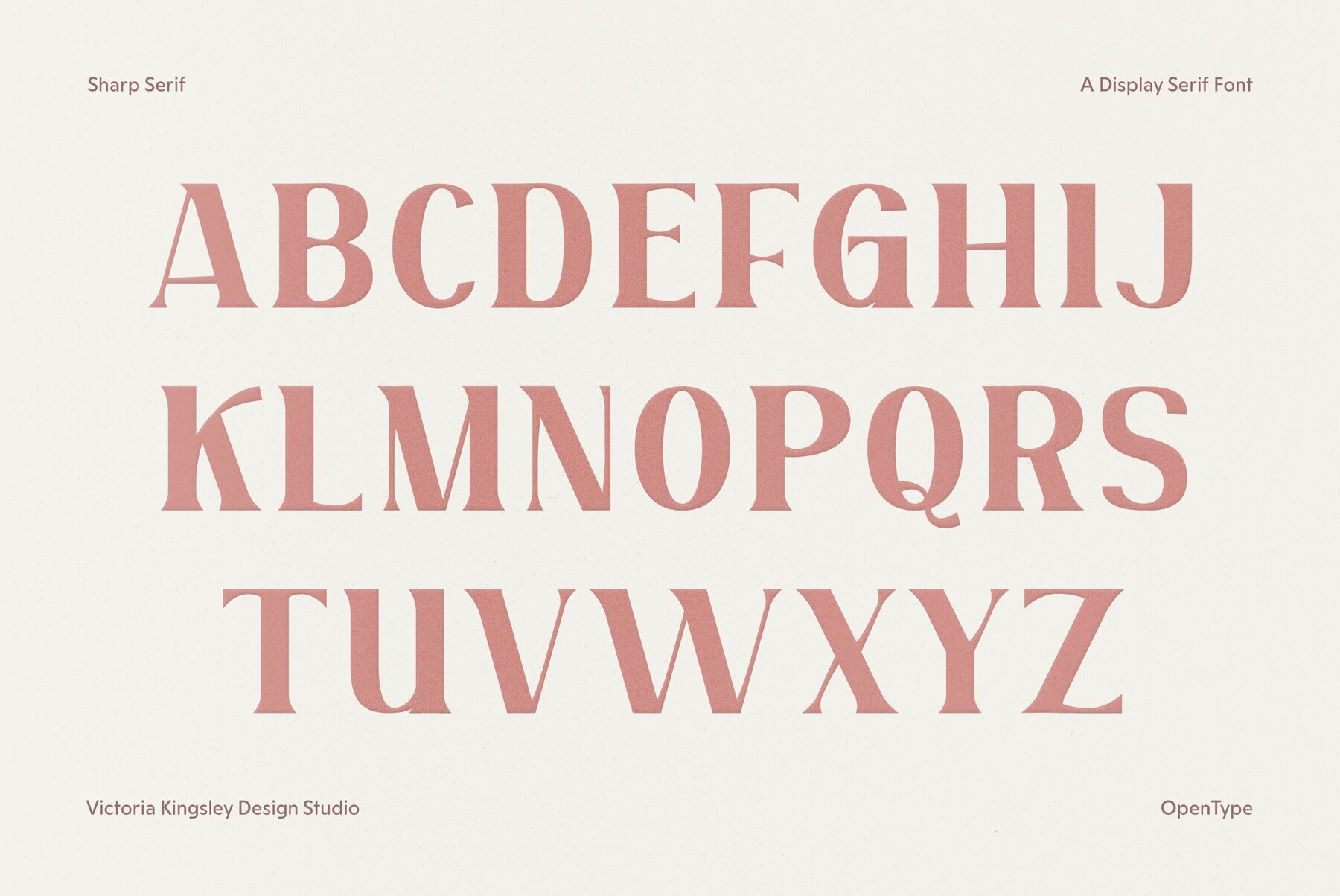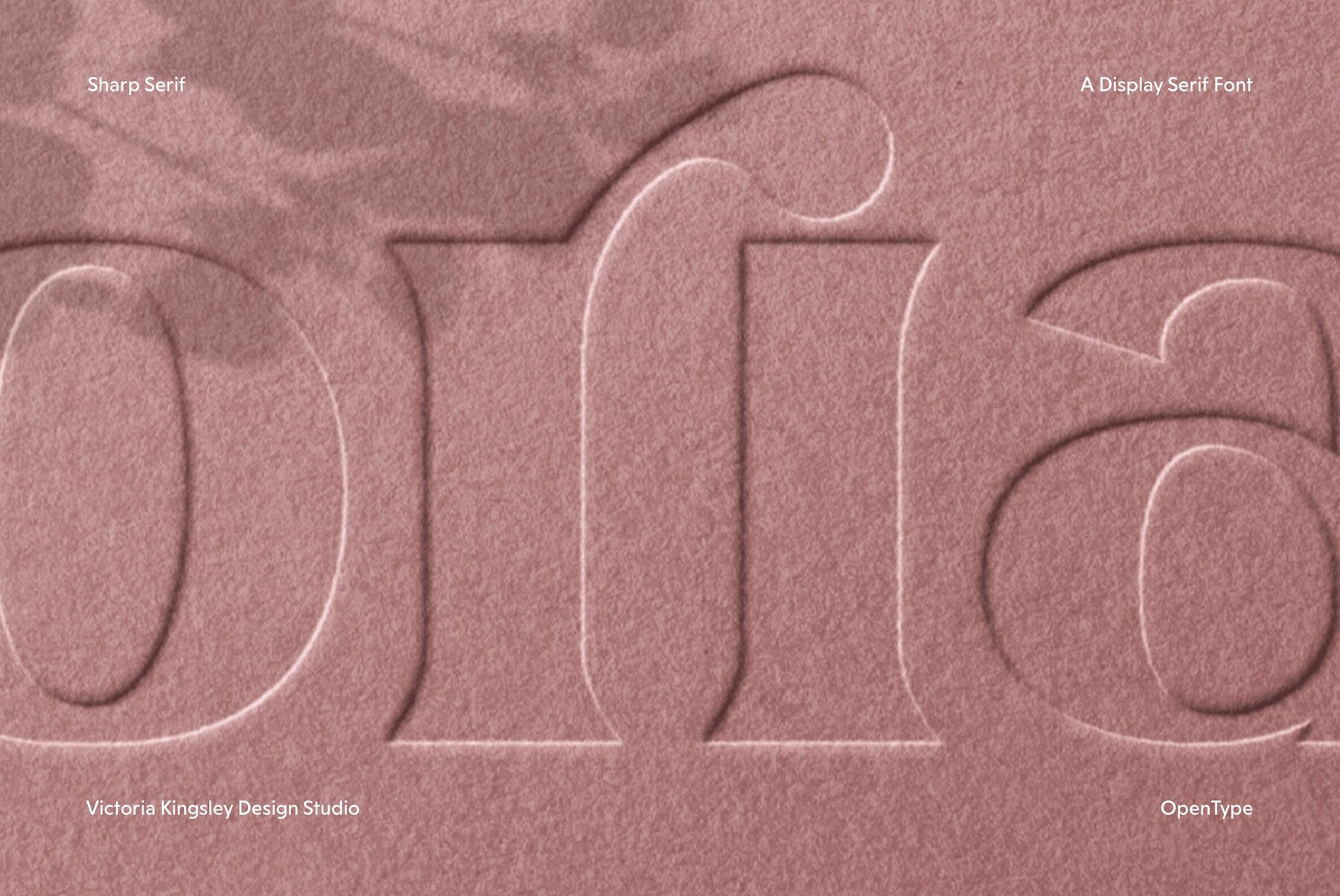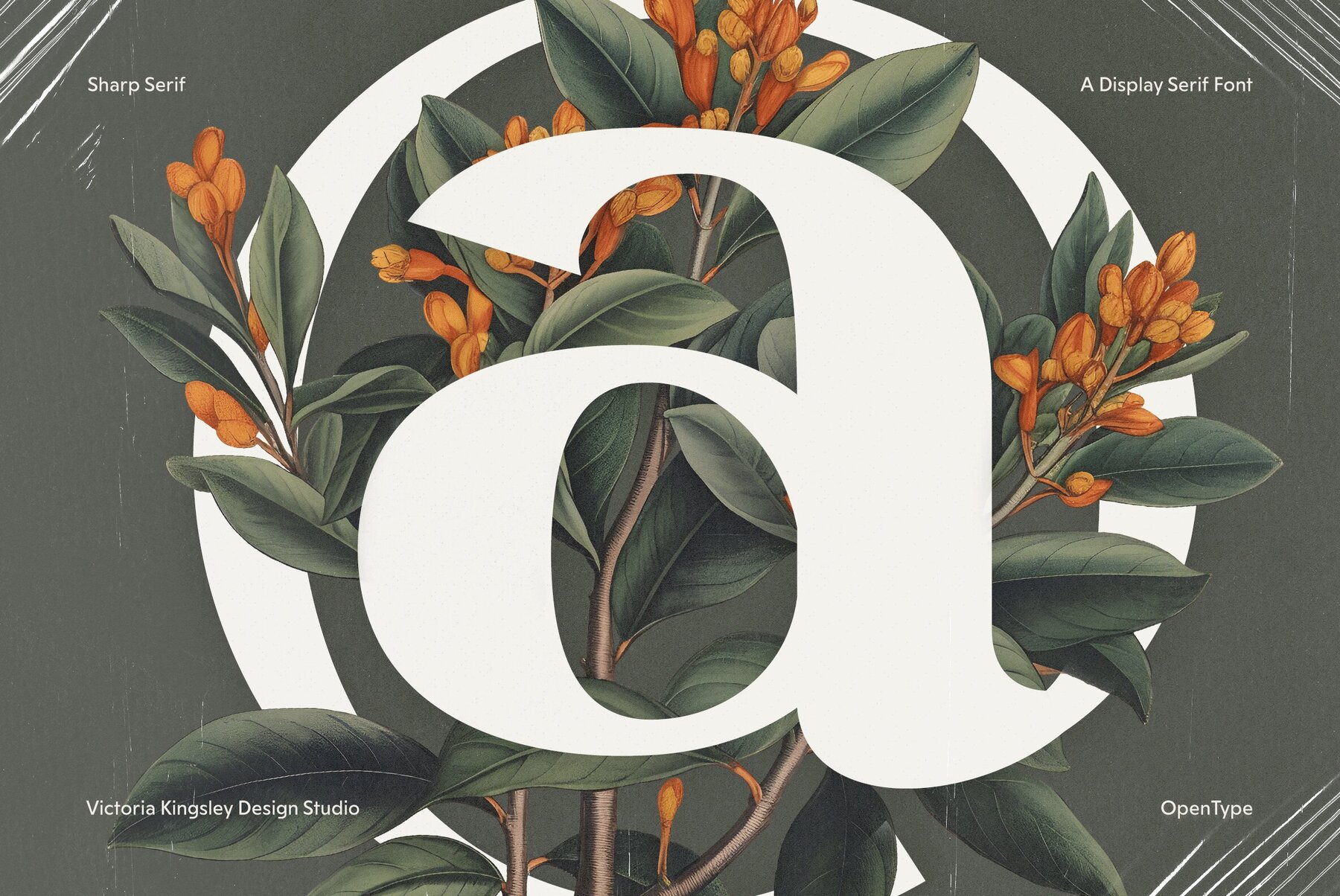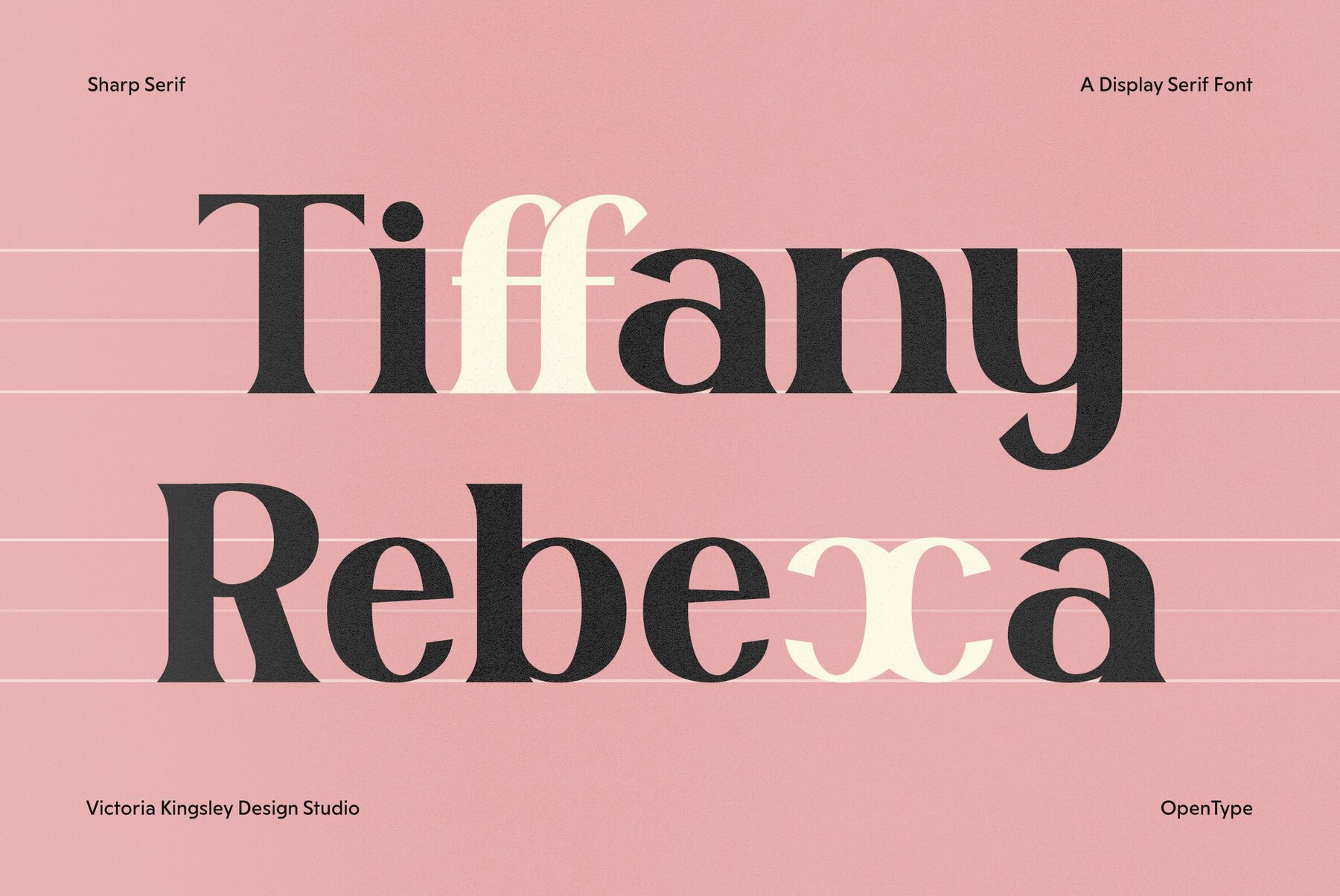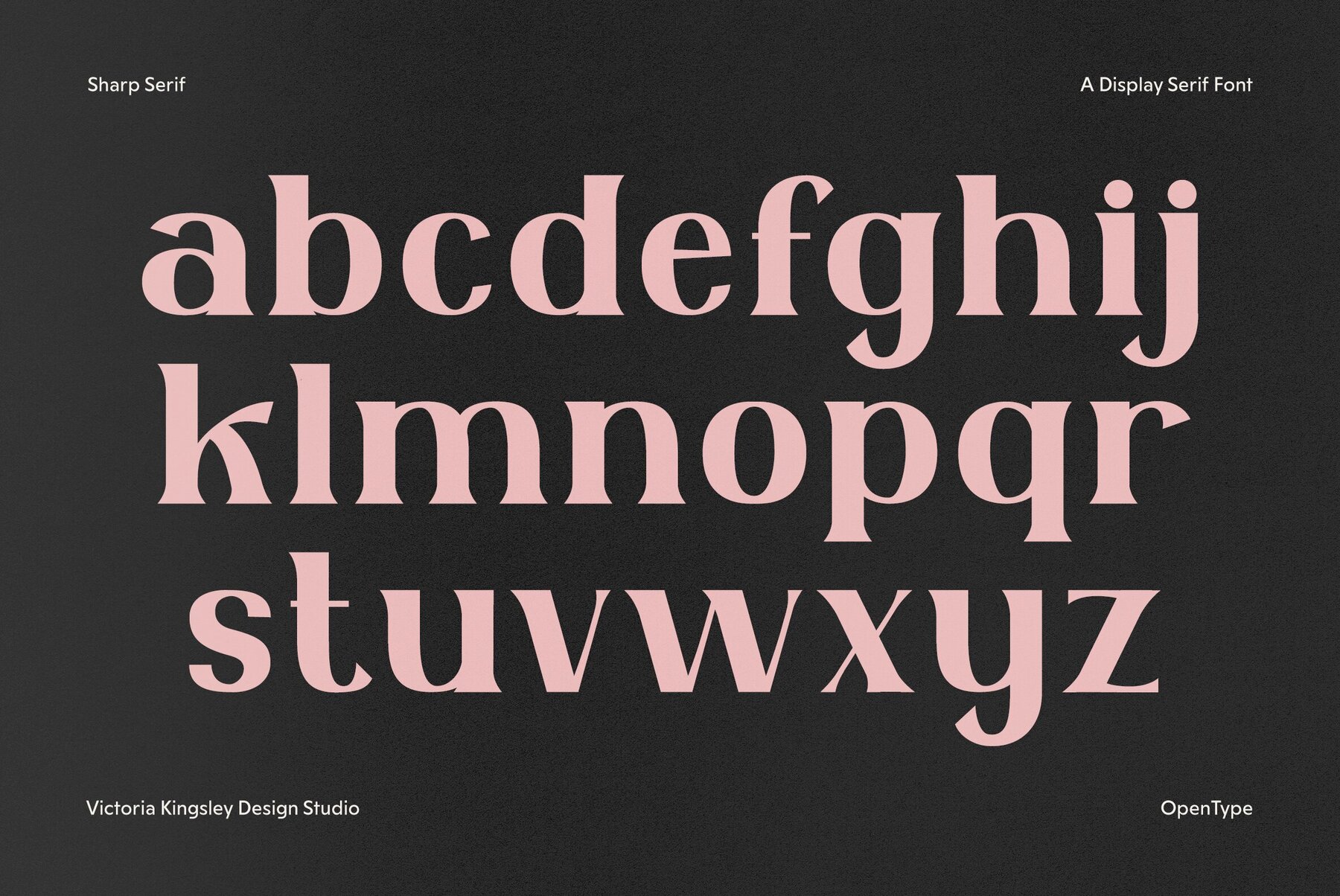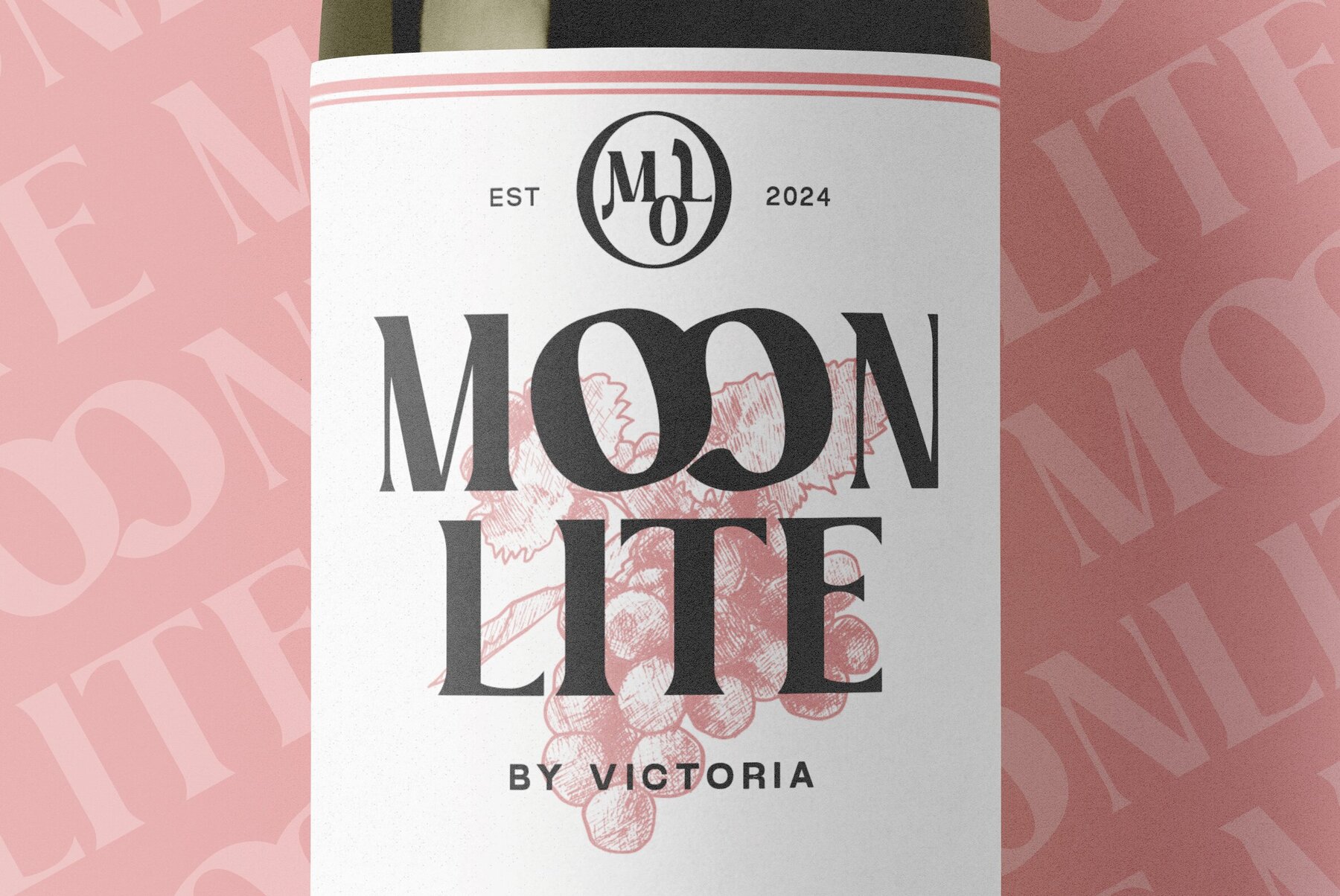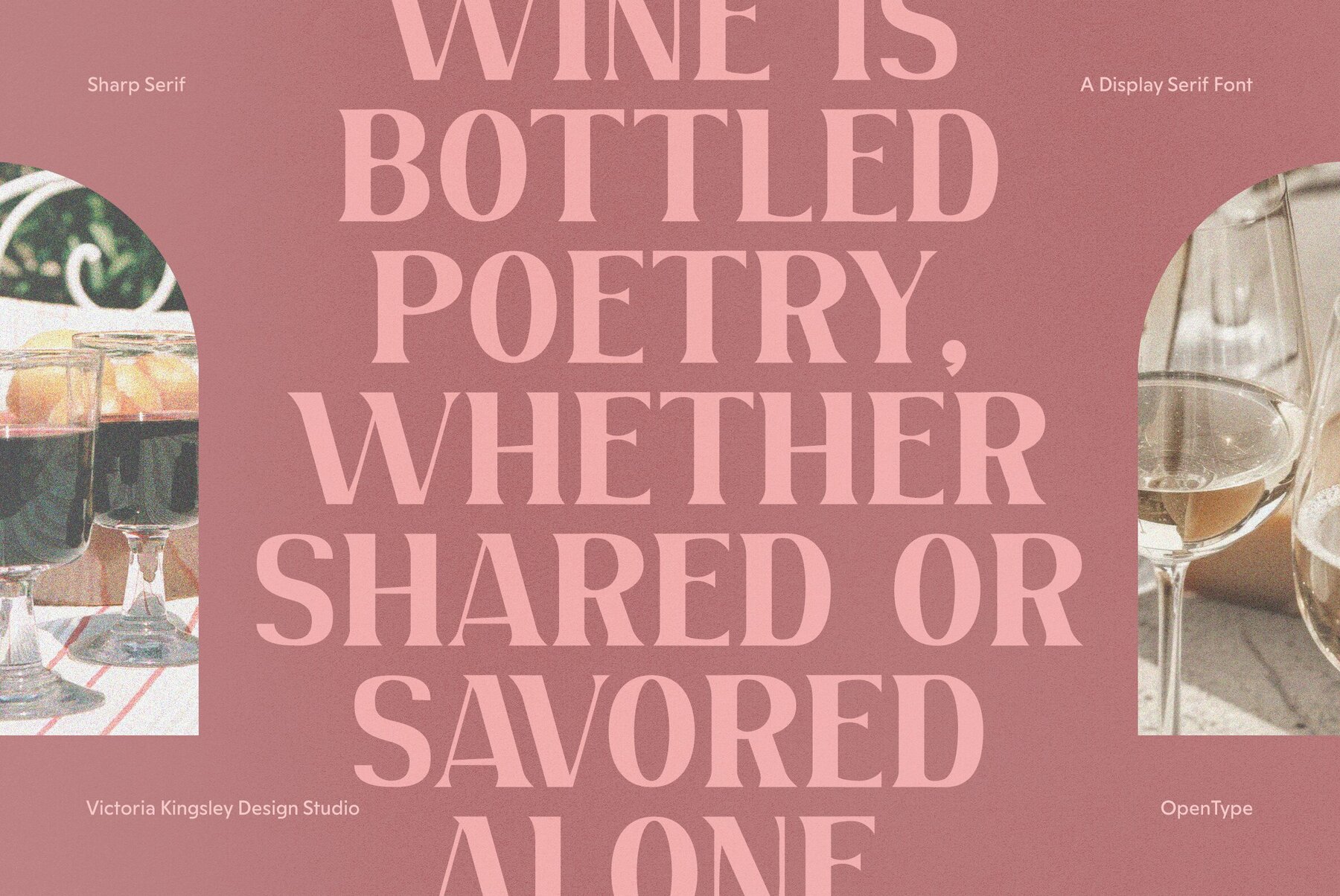
Sharp Serif Font
Sharp Serif
Sharp Serif is a modern and fashionable serif font that brings a touch of vintage charm to any design project. With its sharp serifs and unique style, this font offers endless design possibilities for creating sophisticated and stylish designs. Featuring 418 glyphs and opentype ligature options, it is perfect for creating logos, branding materials, and headlines that demand attention. Its vintage-inspired feel is perfect for designs that have a touch of nostalgia and charm, making it the perfect choice for any designer looking to elevate their work to the next level. Compatible with Canva and other design programs, Sharp Serif is a versatile font that will leave a lasting impression on your audience. Additional products used for slideshow images: